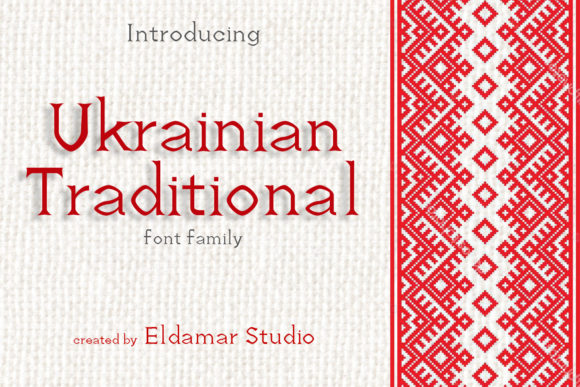
Prepare yourself to be spellbound by Ukrainian Tradition Font, the epitome of elegance and grace. This captivating serif font, a masterpiece crafted by DmDesignsStoreArt, is no ordinary typeface; it's an artistic journey waiting to be embarked upon.
Ukrainian Tradition Font boasts an alluring fusion of sharp, geometric lines and soft, delicate curves, creating a visual symphony that dances across your designs. Its inherent versatility makes it the perfect choice for a myriad of projects, from sleek branding designs to enchanting invitations, and from eye-catching headlines to captivating social media posts.
Immerse yourself in a world of typography with Ukrainian Tradition Font, where every letter becomes an artful expression, every word a visual masterpiece. Experience the exquisite beauty as this font transforms your designs into captivating works of art.
Unlock the power of self-expression and let your creativity soar with Ukrainian Tradition Font. Make a lasting impression and leave your audience spellbound with each design you create.